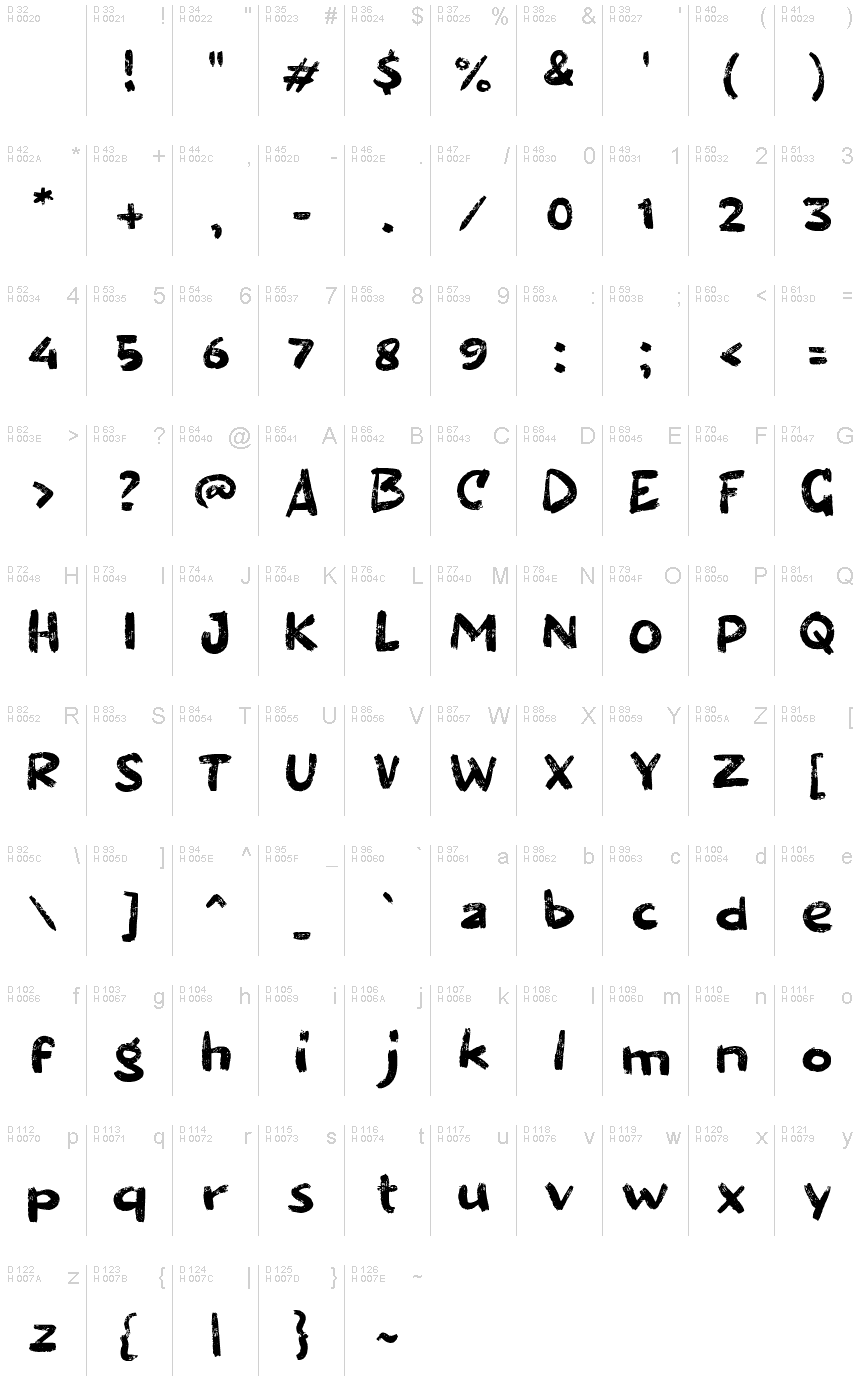
Explorazy
Explorazy, a captivating semi-bold brush font designed by wep, will bring a dynamic and rugged touch to your creative projects. With its eroded texture and expressive strokes, this semi-expanded typeface is perfect for adventure-themed designs like outdoor sporting events posters, travel blogs, and rustic wedding invitations. Its versatile style is also suitable for edgy fashion magazines, grunge album covers or any project that demands an authentic handcrafted feel. Unleash the explorer within you with Explorazy – the ideal choice for those seeking a rebellious yet refined brush font experience.